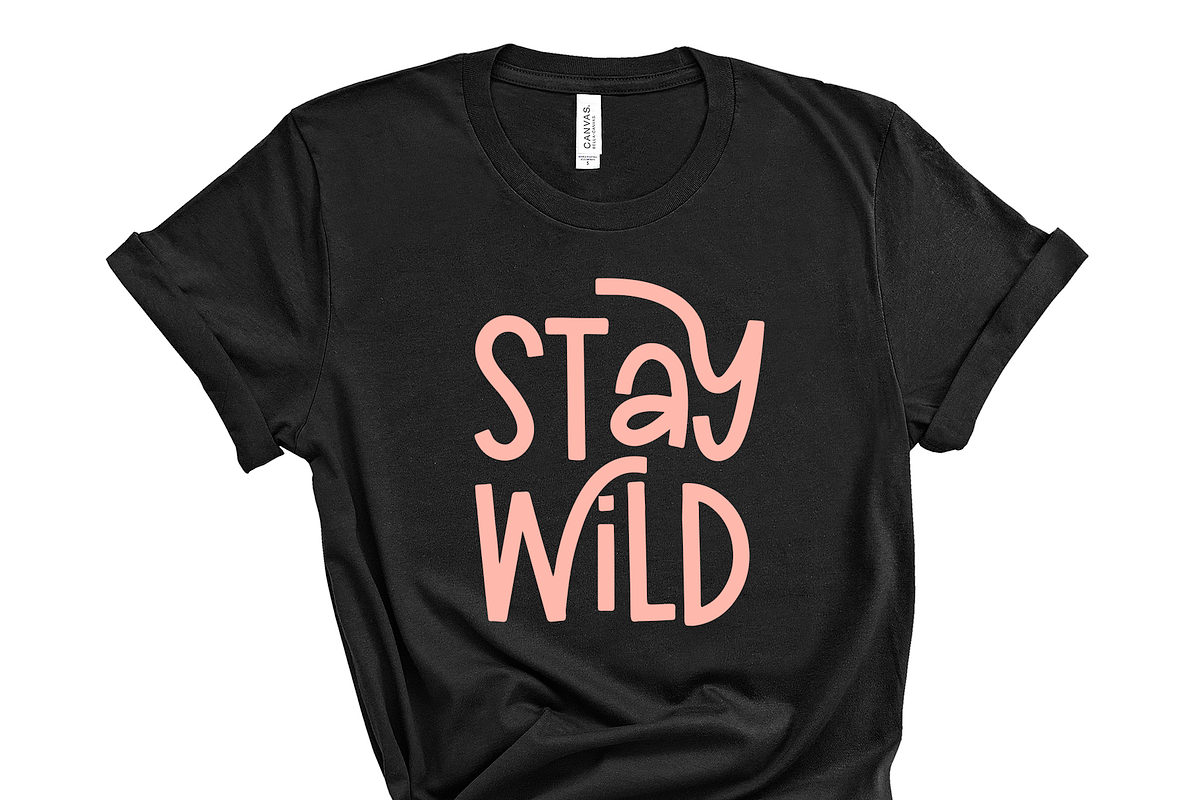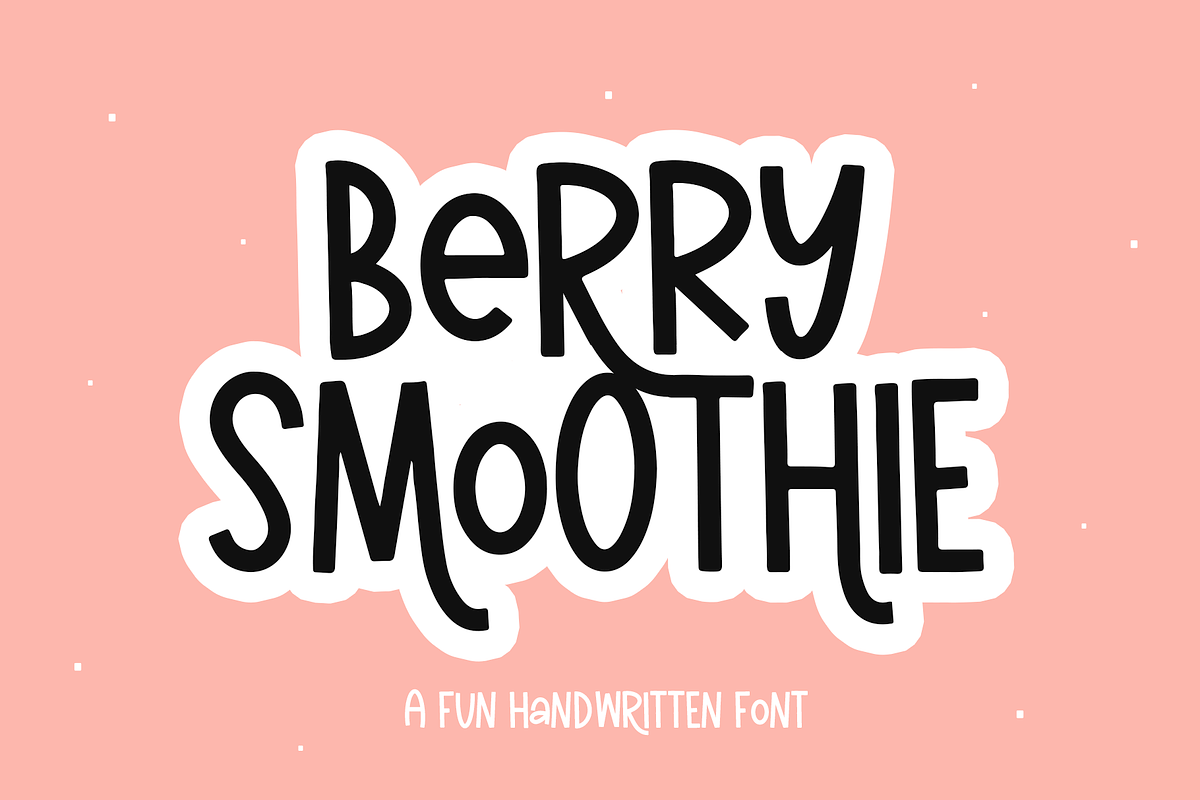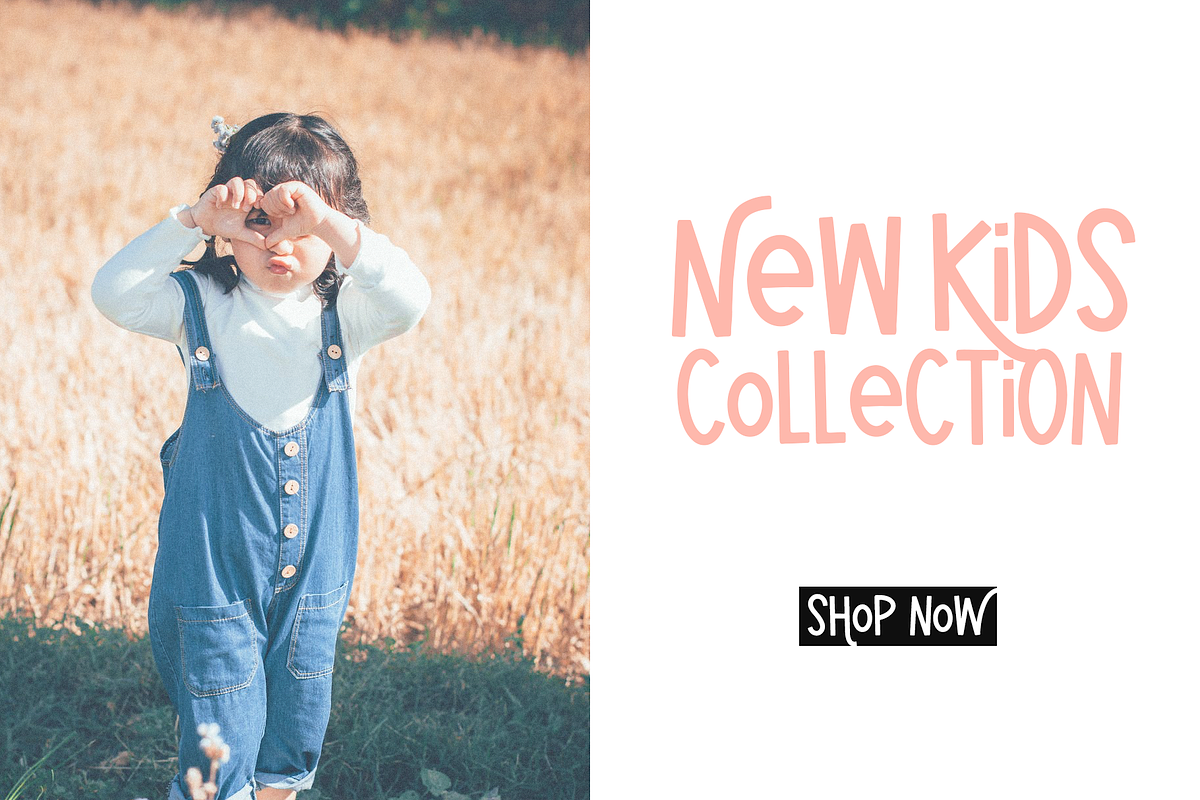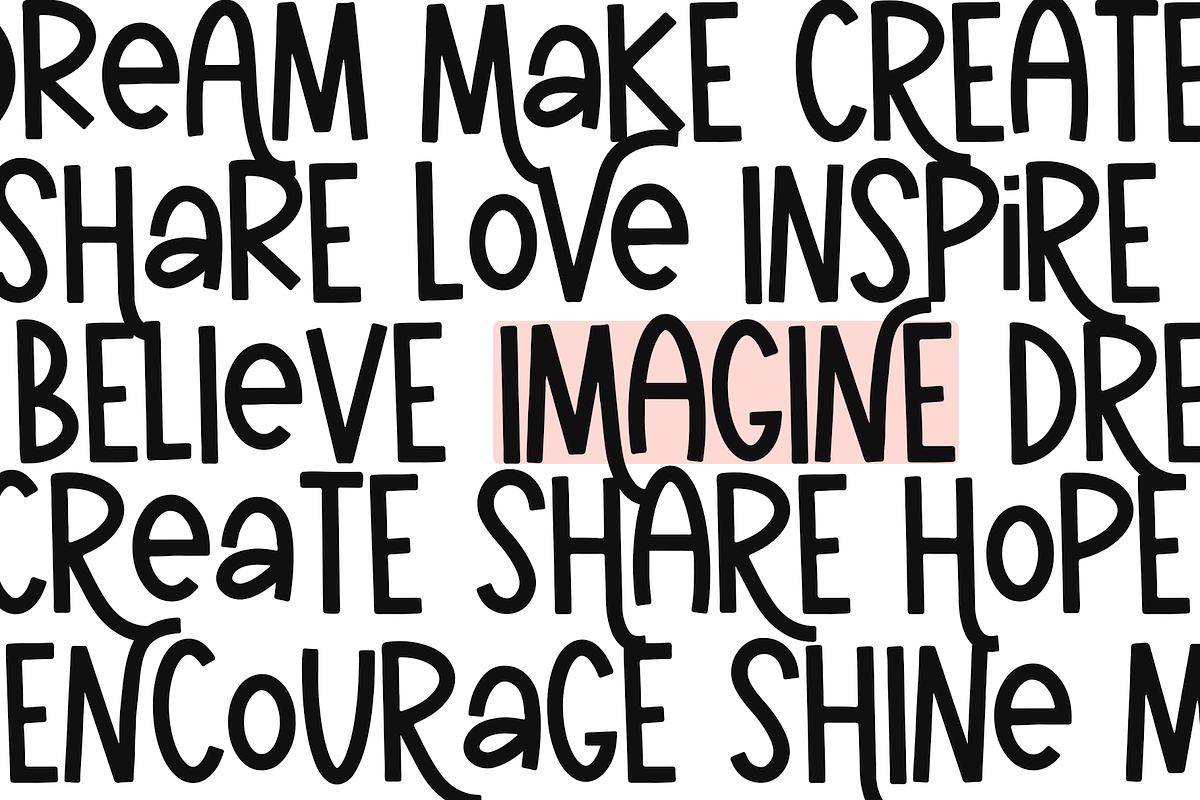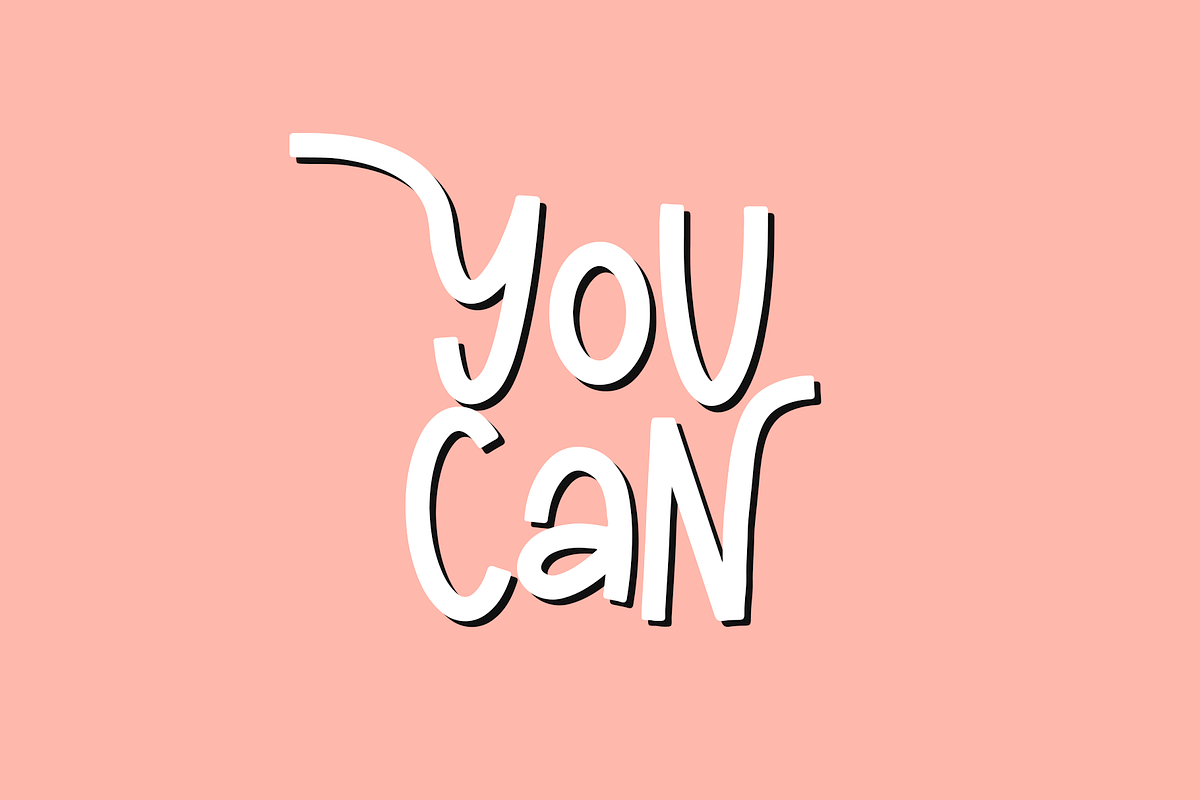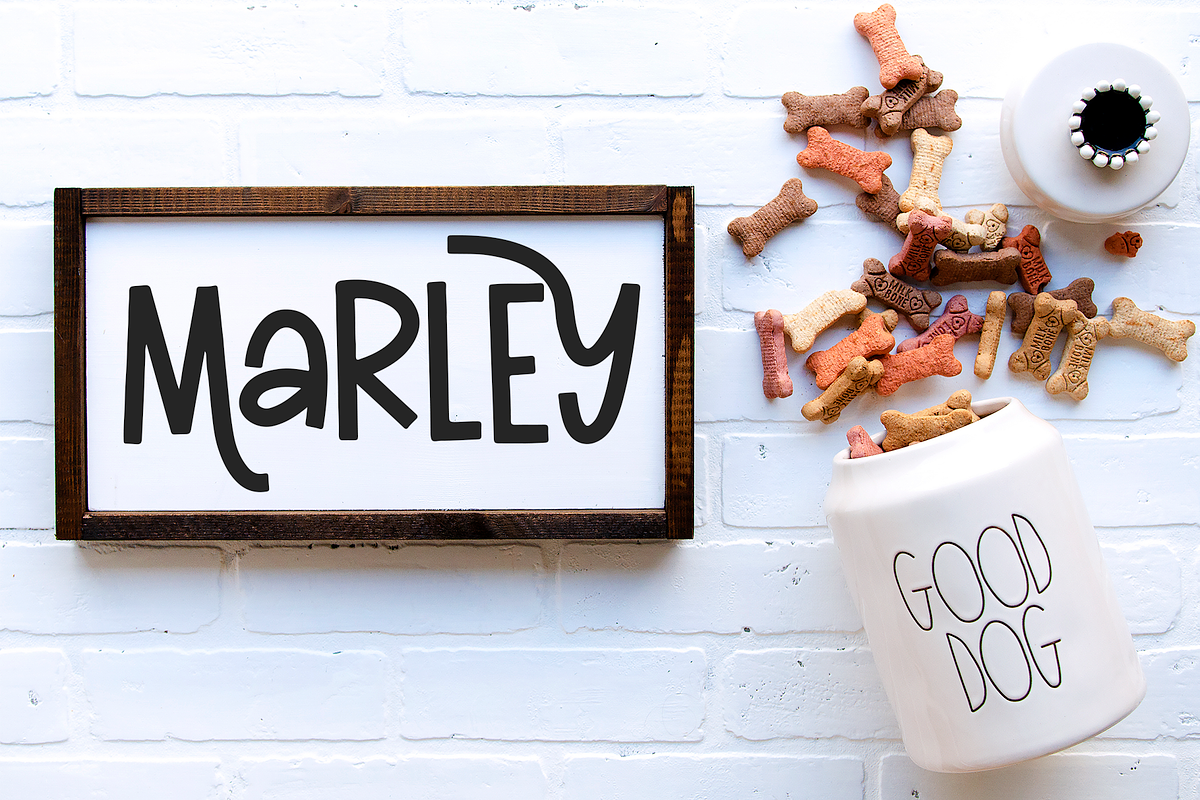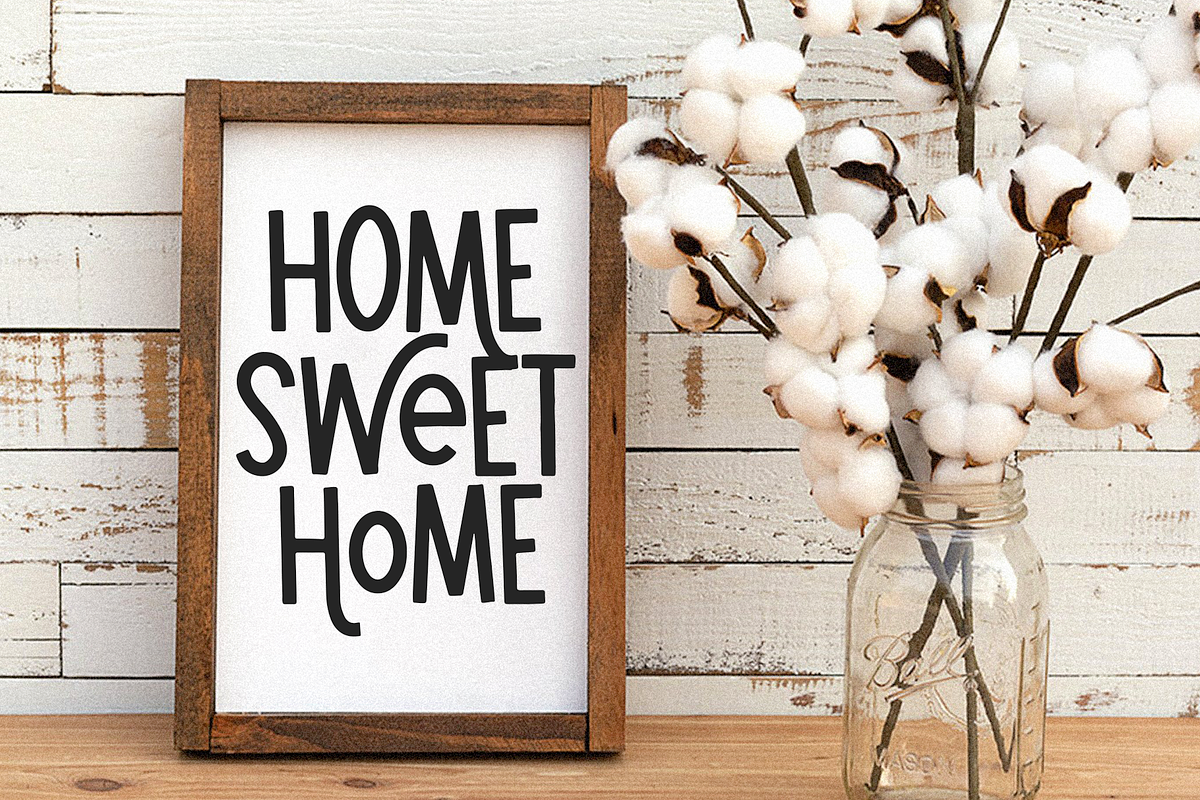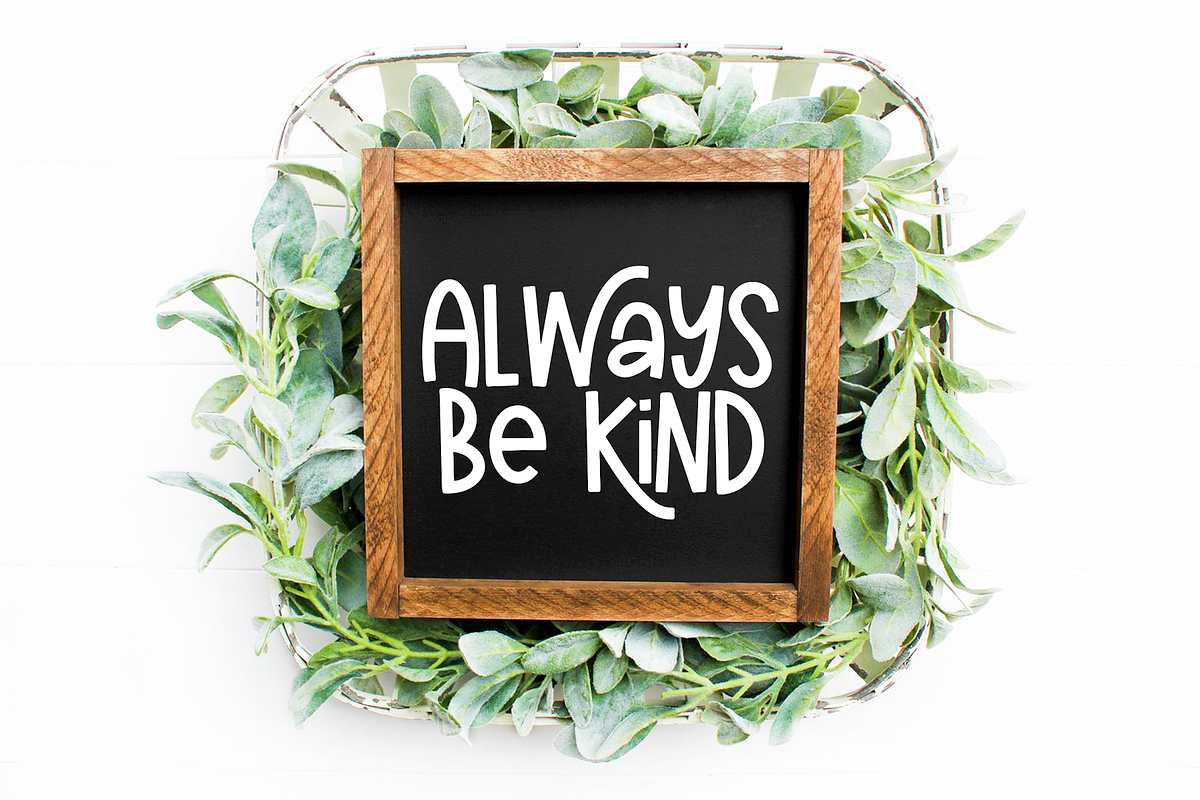
Berry Smoothie | Handwritten Font
Berry Smoothie is a fun handwritten font with quirky alternates!
This font is perfect for shirts, decor, branding, logos, web, instagram, social media, signs, invitations and more!